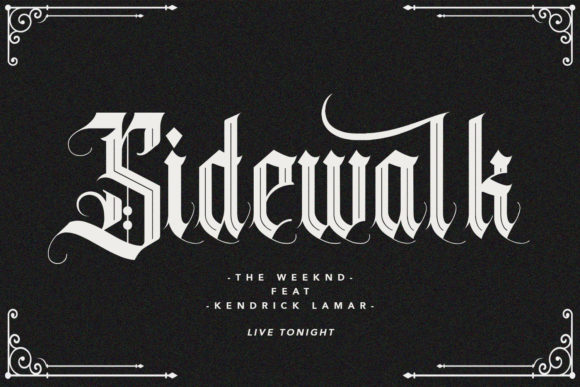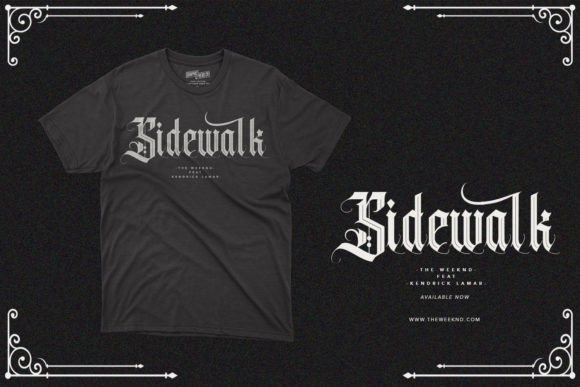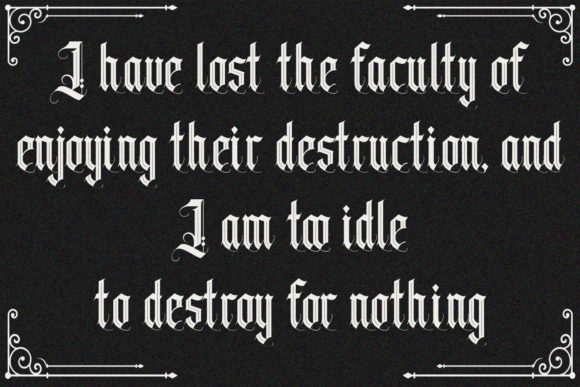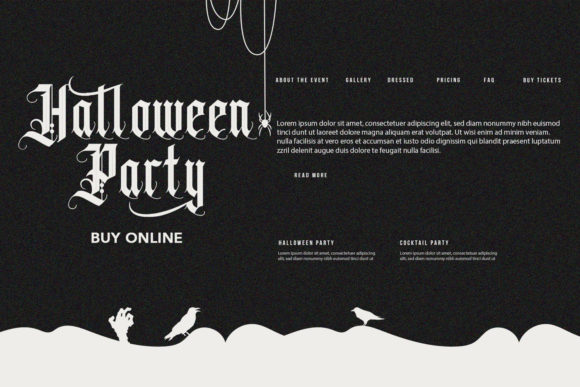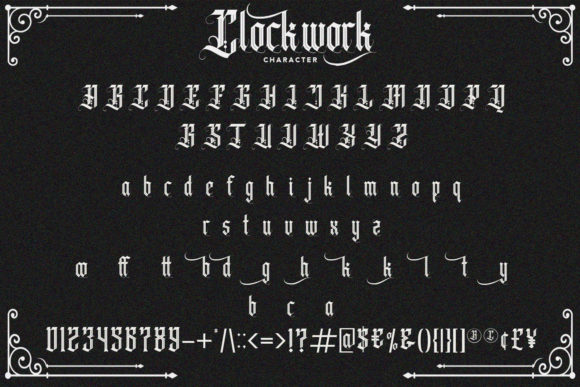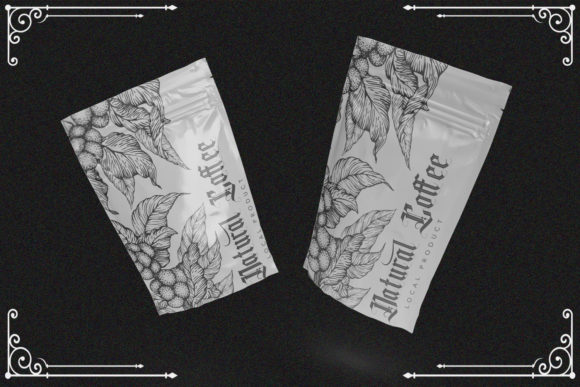
Introduction to Clockwork Font
Do you remember that moment when a design idea strikes you, and you just can’t wait to bring it to life? It’s like a spark in your mind, and you know exactly what you want to create. For designers like you, finding the right font can be the difference between a mediocre and a breathtaking design. And that’s where the Clockwork Font comes in – a bold and authentic blackletter font that will take your creative project to the next level.
Whether you’re working on a project that requires a high-quality, free download, or you simply want to add a unique touch to your design, the Clockwork Font is a valuable resource that you shouldn’t miss. With its transparent background and stunning aesthetic, this font is perfect for designers who want to make a statement and stand out from the crowd.
Key Features of Clockwork Font
- Unique blend of industrial and futuristic elements, perfect for creative projects that require a high-quality design resource.
- Includes a range of characters, including uppercase and lowercase letters, numbers, and punctuation marks, making it a comprehensive design resource.
- Perfect for designers working on industrial, futuristic, or steampunk-themed projects, adding a unique touch to their creative work.
Honest Review: Clockwork Font
As a designer, I’m always on the lookout for unique and high-quality design resources to enhance my creative projects. The Clockwork Font is one such find that has caught my attention lately.
- ✨ High-quality design with intricate details that make it perfect for steampunk-inspired projects
- ✨ The transparent background option provides endless possibilities for creative manipulation and customization
- ⚠️ Some users may find the font’s complexity overwhelming, so it’s essential to understand how to effectively use it in a design
Overall, I’m impressed with the Clockwork Font’s unique design and versatility. It’s an excellent choice for designers looking to add a touch of steampunk flair to their creative projects.
How to Use Clockwork Font
The Clockwork Font is a high-quality design resource ideal for creative projects requiring a unique and stylish touch. With its transparent background, this font can be easily integrated into various design platforms.
Using Clockwork Font in Design Platforms
To get the most out of the Clockwork Font, use it in creative ways such as:
- Combining it with other fonts for a unique look.
- Using it in bold and italic styles for emphasis.
- Experimenting with different font sizes and colors.
The Clockwork Font is suitable for various design projects, including:
- Branding and logo design.
- Infographics and data visualization.
- Print and digital advertising.
Comparison to Clockwork Font: While Clockwork Font has a mechanical feel, Great Vibes Font is more organic and flowing. Great Vibes Font is better suited for projects that require a touch of whimsy and romance.
Alex Brush Font is a beautiful, handwritten font perfect for creative projects that require a personal touch. It features a high-quality design and a transparent background, making it ideal for designing on top of images or videos. Download Alex Brush Font for free to add a personal touch to your design resource.
What makes the Clockwork Font a high-quality design resource?
The Clockwork Font is a high-quality design resource due to its precise craftsmanship and attention to detail. The font features a unique blend of mechanical and organic elements, resulting in a visually striking and highly versatile design. With its high-quality design, the Clockwork Font is an excellent choice for any creative project that requires a premium look and feel.